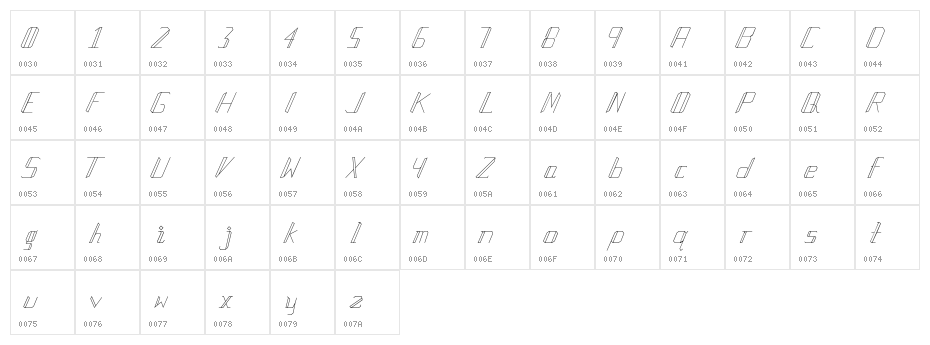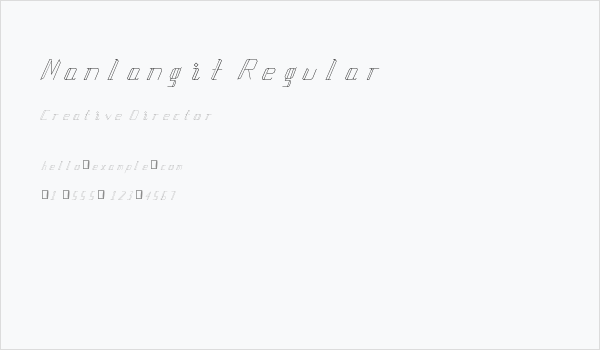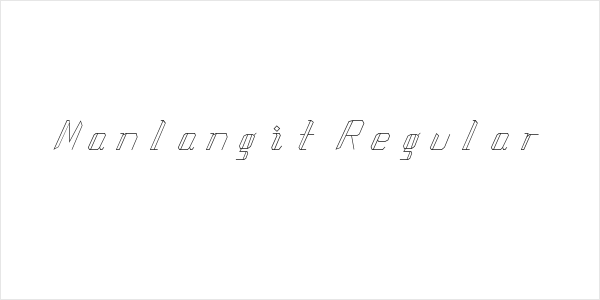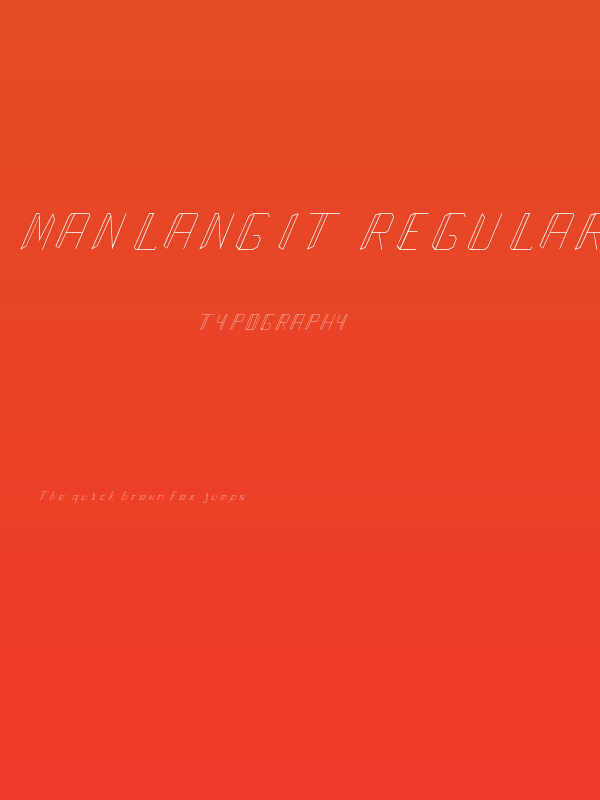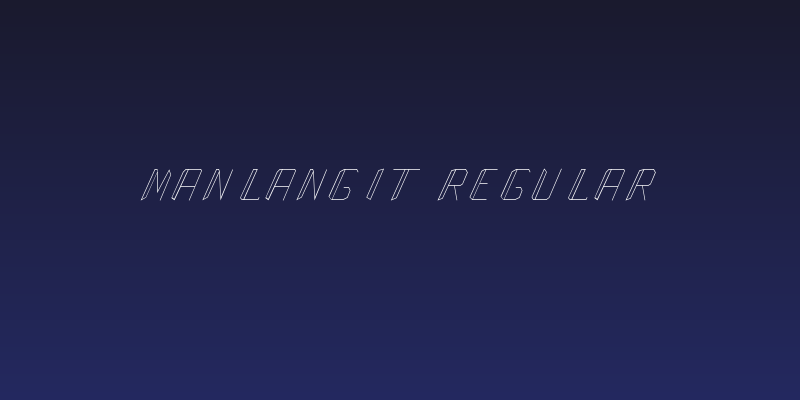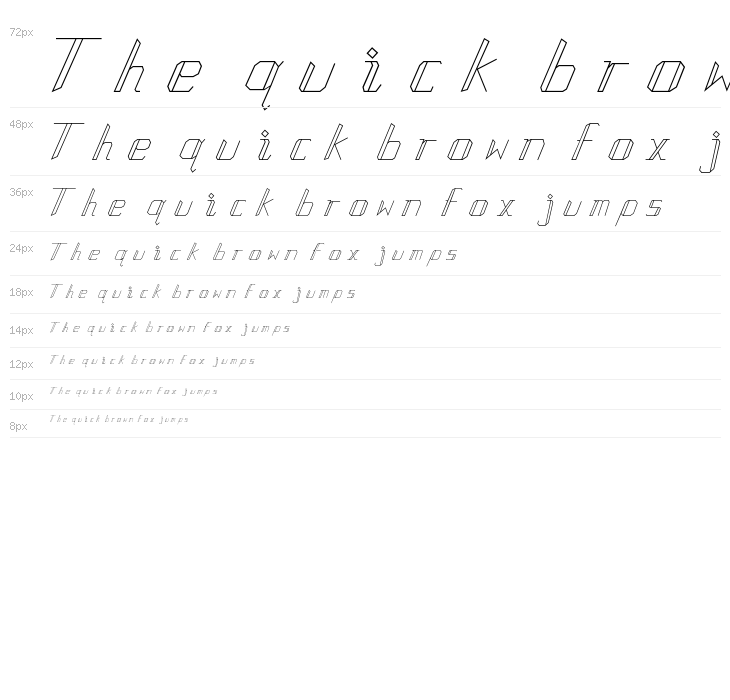
Manlangit Regular Font
Manlangit Regular Description
This font features a unique, geometric design with a modern twist. Each character is composed of angular lines and sharp edges, creating a sense of movement and dynamism. The uppercase and lowercase letters maintain a consistent style, with a slight slant that adds to the overall sleek appearance. The numerals and special characters follow the same design principles, ensuring a cohesive look across all glyphs. The font's thin strokes and open counters give it a light, airy feel, making it suitable for contemporary design projects.
| Proposed Projects | Ideal for tech branding, modern posters, futuristic designs, and digital interfaces. |